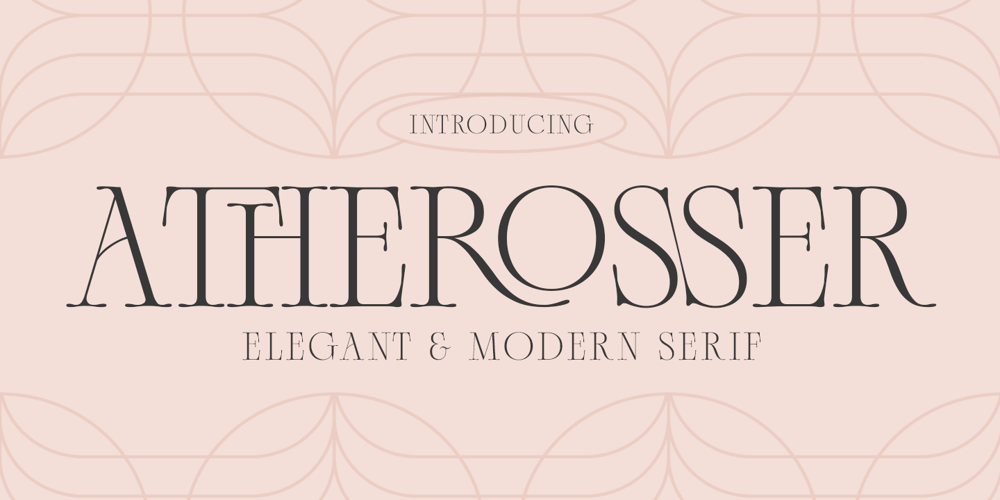
Atherosser Font Family was designed by Abdul Malik Wisnu, Rivo Adriansyah and published by Mokatype Studio. Atherosser contains 1 styles and family package options. Atherosser is elegant classic serif font inspired from old formal roman, built with modern nuance, and still looks vintage, unique design with rounded on the tip of serif and lots of alternates and ligatures. This font is suitable for any purposes of design like headlines, typography, Poster, magazines, brochures, packaging, websites, and much more for your design needs, making your designs look like luxurious nuances. And still, this font can be used for long text design. What’s you get : Standard glyphs Ligatures (Opentype features) Alternates (Opentype features) Web Font International Accent Works on PC & Mac Simple installations Accessible in Adobe Illustrator, Adobe Photoshop, Adobe InDesign, and even work on Microsoft Word. PUA Encoded Characters – Fully accessible without additional design software. Fonts include multilingual supportImage used: All photographs/pictures/vectors used in the preview are not included, they are intended for illustration only. Thank You